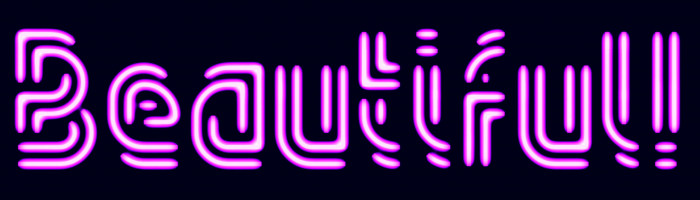
Nice inline!
Great Lines...Oh a important comment! The Lines are Good,but we like to make a Black Solid Version for this Font
Another great linework. It would be awesome with a neon effect. 10/10
Four...Great Lines and likes Outline the Letters my Friend!